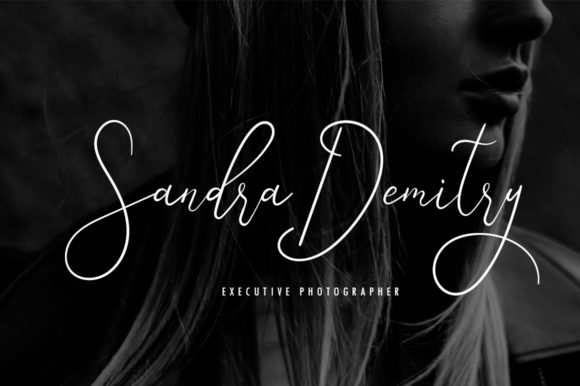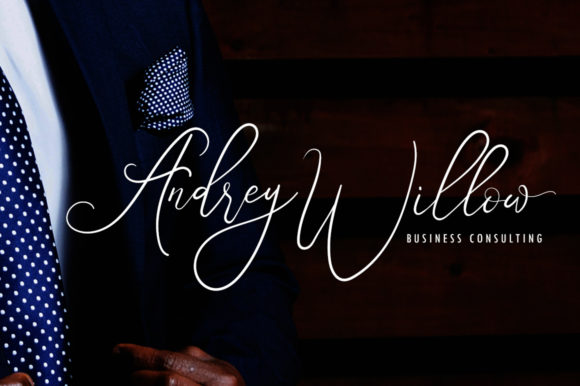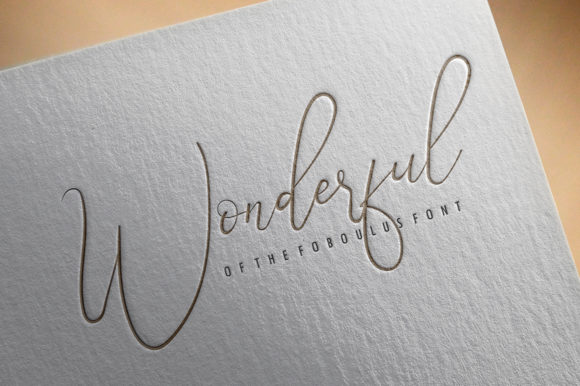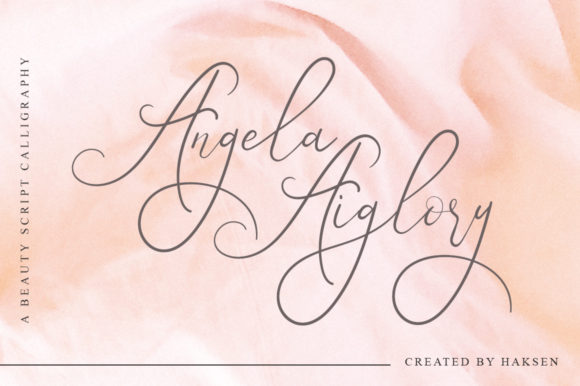
The Angela Aiglory Font: A Beautiful Calligraphy Script for Creative Projects
I’ll never forget the time I was working on a wedding invitation project, and my client asked for a font that was elegant, yet approachable. I scoured the internet, trying out font after font, but nothing seemed quite right. That was until I stumbled upon the Angela Aiglory font. Its beautiful calligraphy script and natural writing style instantly captured the essence of what my client was looking for. In this article, I’ll share my experience with the Angela Aiglory font, its features, and how to make the most of it in your creative projects.
A Personal Review of Angela Aiglory
The Angela Aiglory font has quickly become one of my go-to fonts for a variety of projects. Here’s what I love about it:
- ✨ Natural writing style: The font has a fluid, handwritten feel that’s perfect for creating a personal touch in greeting cards, branding materials, and more.
- ✅ Versatility: Whether you’re working on a business card, quote, poster, or social media graphic, the Angela Aiglory font adapts seamlessly.
- 💫 Elegant yet approachable: The font strikes the perfect balance between sophistication and friendliness, making it suitable for a wide range of projects.
While the Angela Aiglory font is amazing, there are a few things to keep in mind:
- ⚠️ Legibility at small sizes: Like many script fonts, the Angela Aiglory can become a bit tricky to read at very small sizes. It’s best used at larger sizes or for headlines.
- 🤔 Glyph coverage: While the font has a wide range of characters, some users may find that it lacks certain special characters or diacritics.
- Experiment with the font’s OpenType features and glyphs to add more personality to your text.
- Explore the font’s stylistic alternates and swashes to add more flair to your text.
The Story Behind Angela Aiglory
The Angela Aiglory font was designed by a talented type designer who’s passionate about creating beautiful, functional fonts. Inspired by traditional calligraphy, the designer aimed to create a font that was both elegant and approachable. The result is a font that’s perfect for a wide range of creative projects.
| Font Name | Angela Aiglory Font |
| Author | Haksen |
| What type of projects is the Angela Aiglory font best suited for? | The Angela Aiglory font is perfect for greeting cards, branding materials, business cards, quotes, posters, and more! |
| Is the Angela Aiglory font suitable for body text? | While the font is beautiful, it’s best used for headlines and display text due to its script nature. For body text, a sans-serif or serif font is usually more readable. |
| Does the Angela Aiglory font come with OpenType features? | Yes! The font includes a range of OpenType features, glyphs, and stylistic alternates to help you customize your text. |